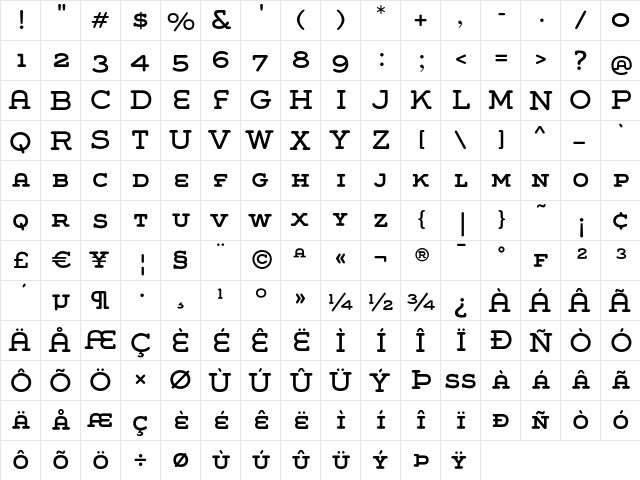
Grover Slab Caps Regular
Design Context for Grover Slab Caps Typeface
Grover Slab Caps combines the readability of serif typography with the visual weight of a slab construction, resulting in a typeface that feels both authoritative and approachable.
Works well in editorial design, news publishing, impactful branding, and poster typography.
Pro Tip: Try Grover Slab Caps set tight in headlines for a classic editorial feel. Its slab serifs create strong horizontal rhythm that anchors a page layout.